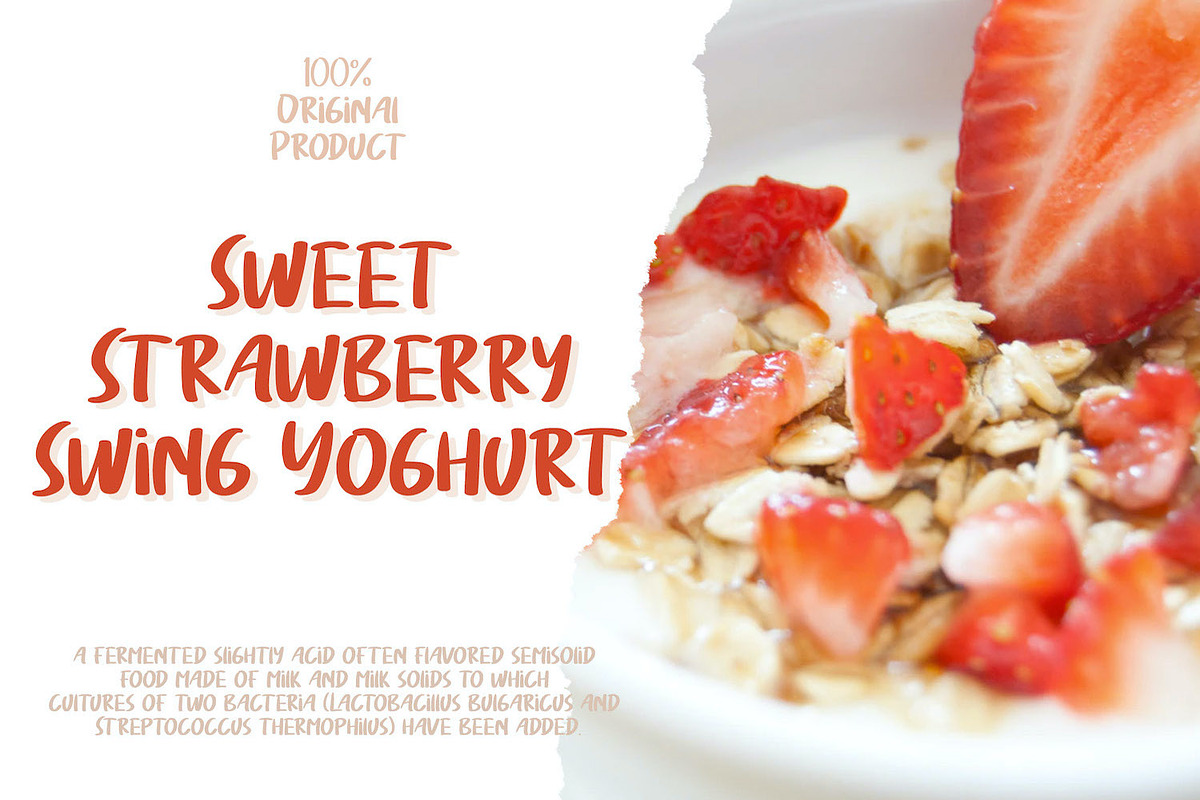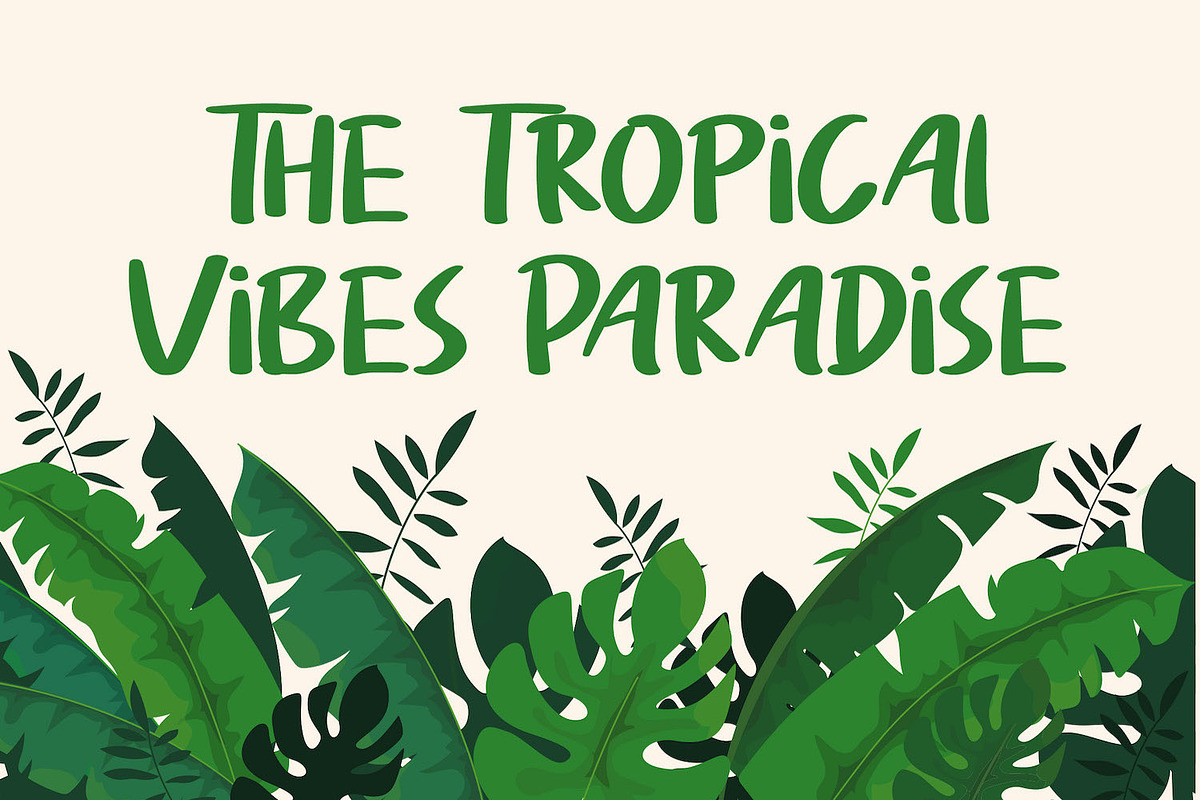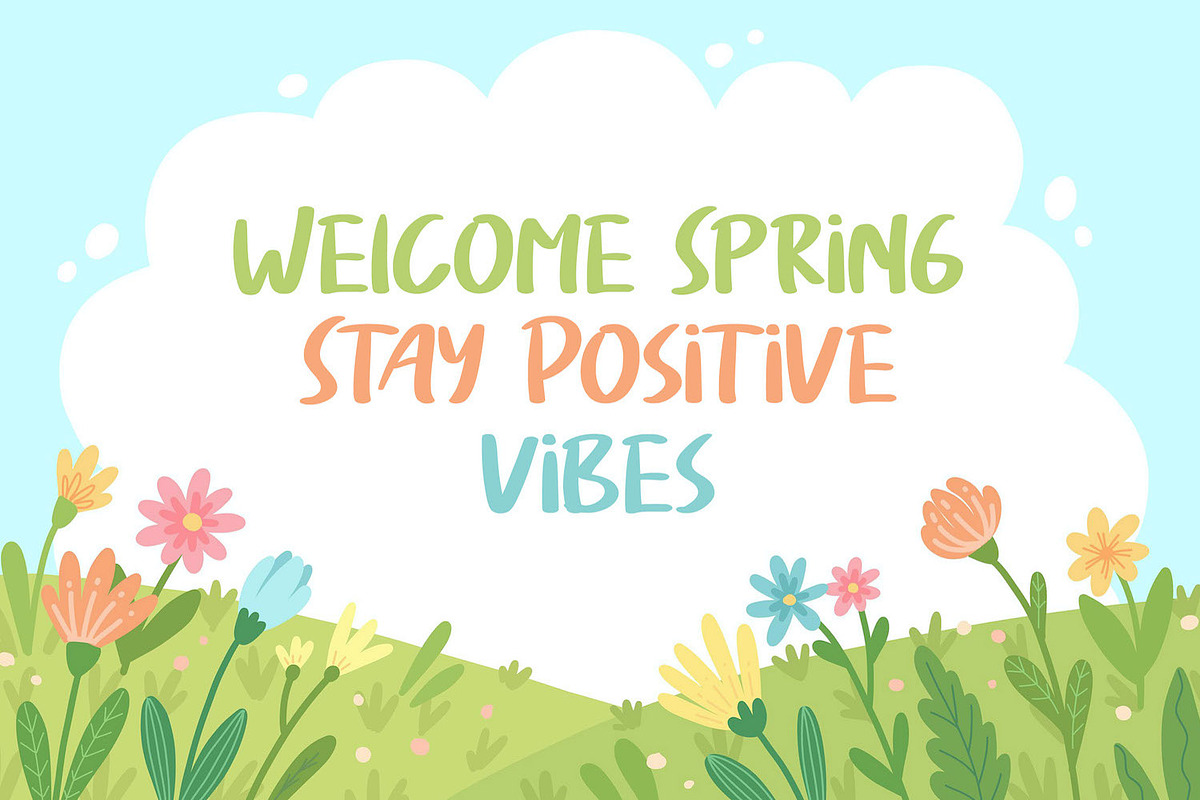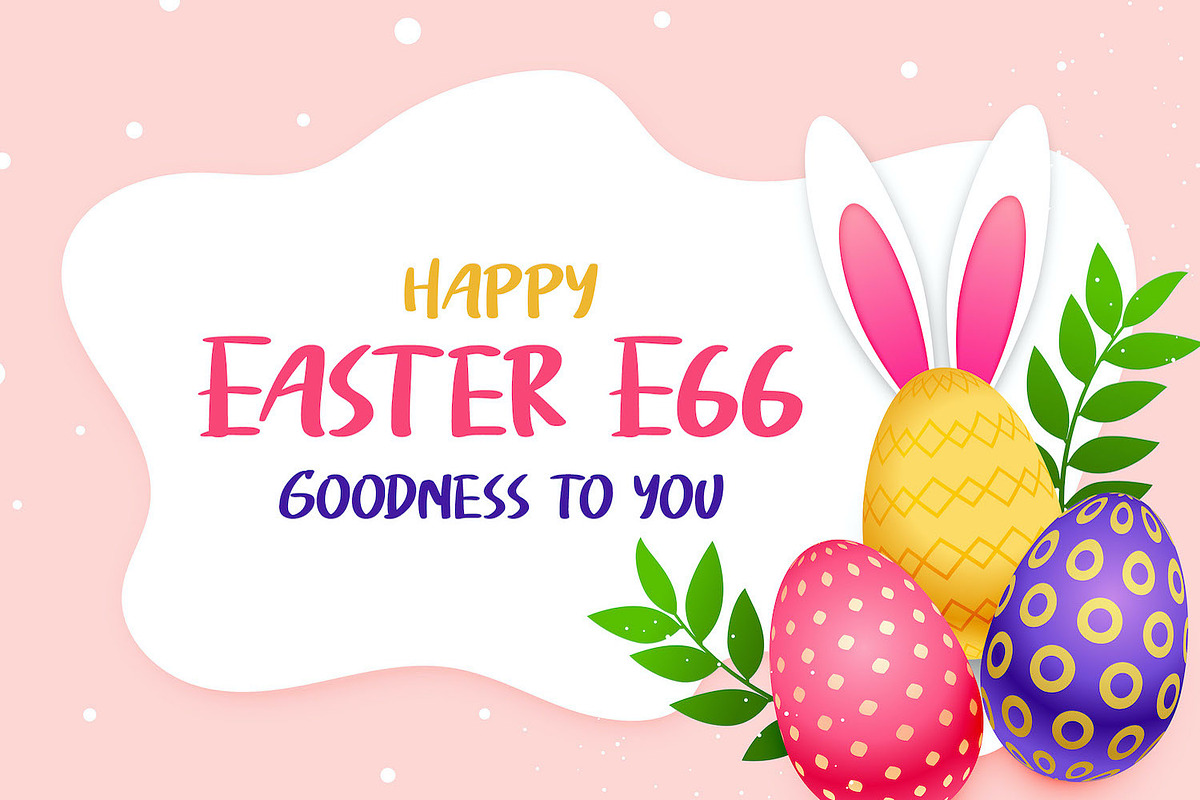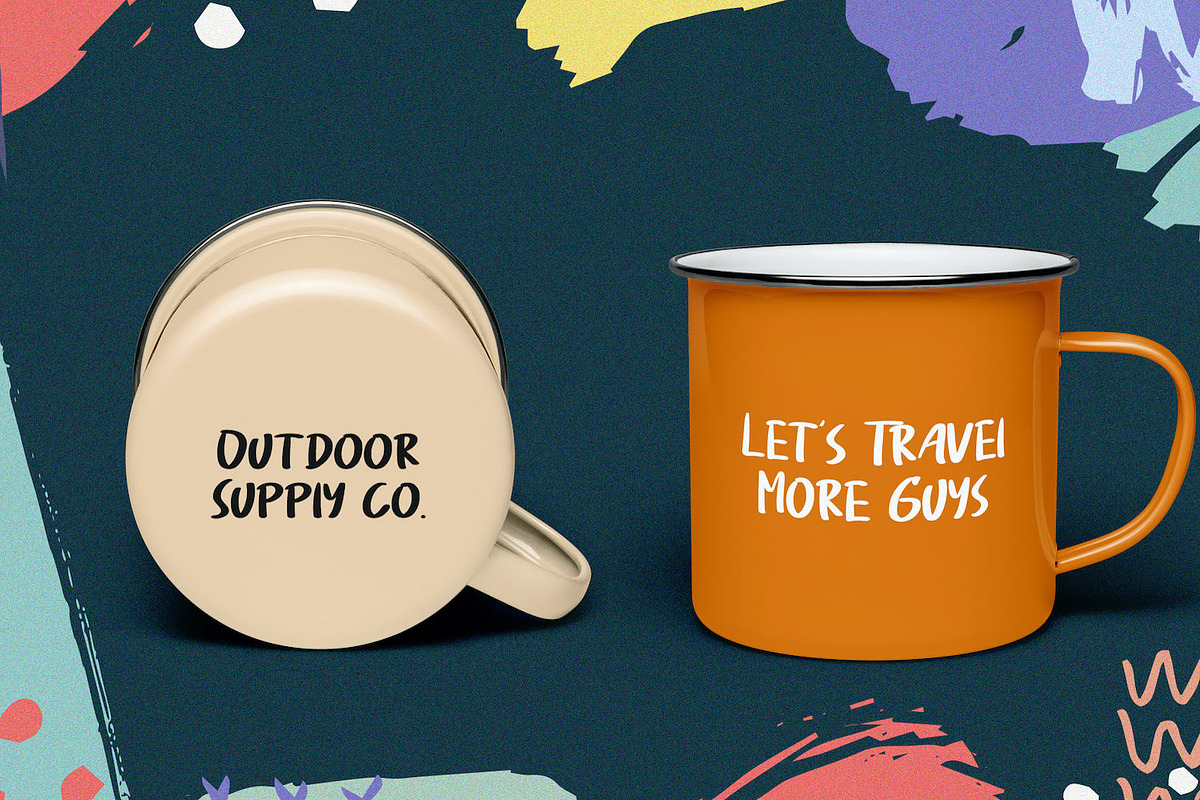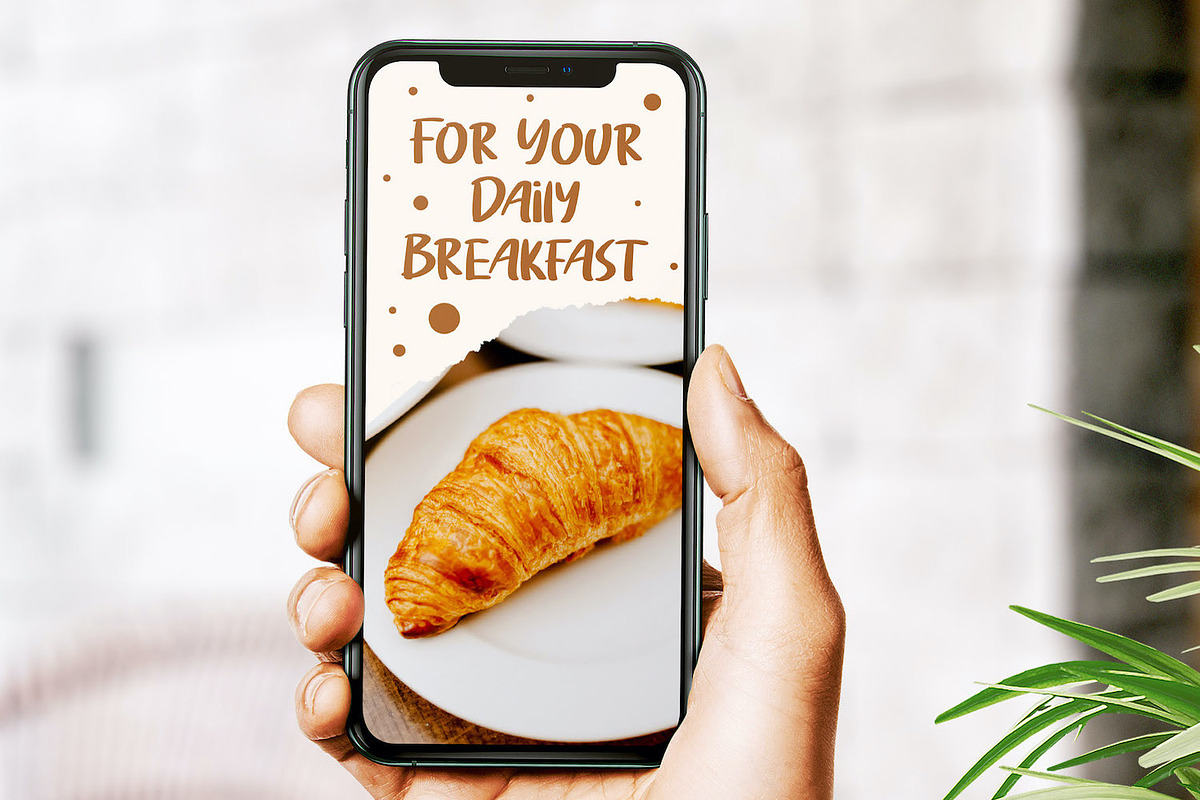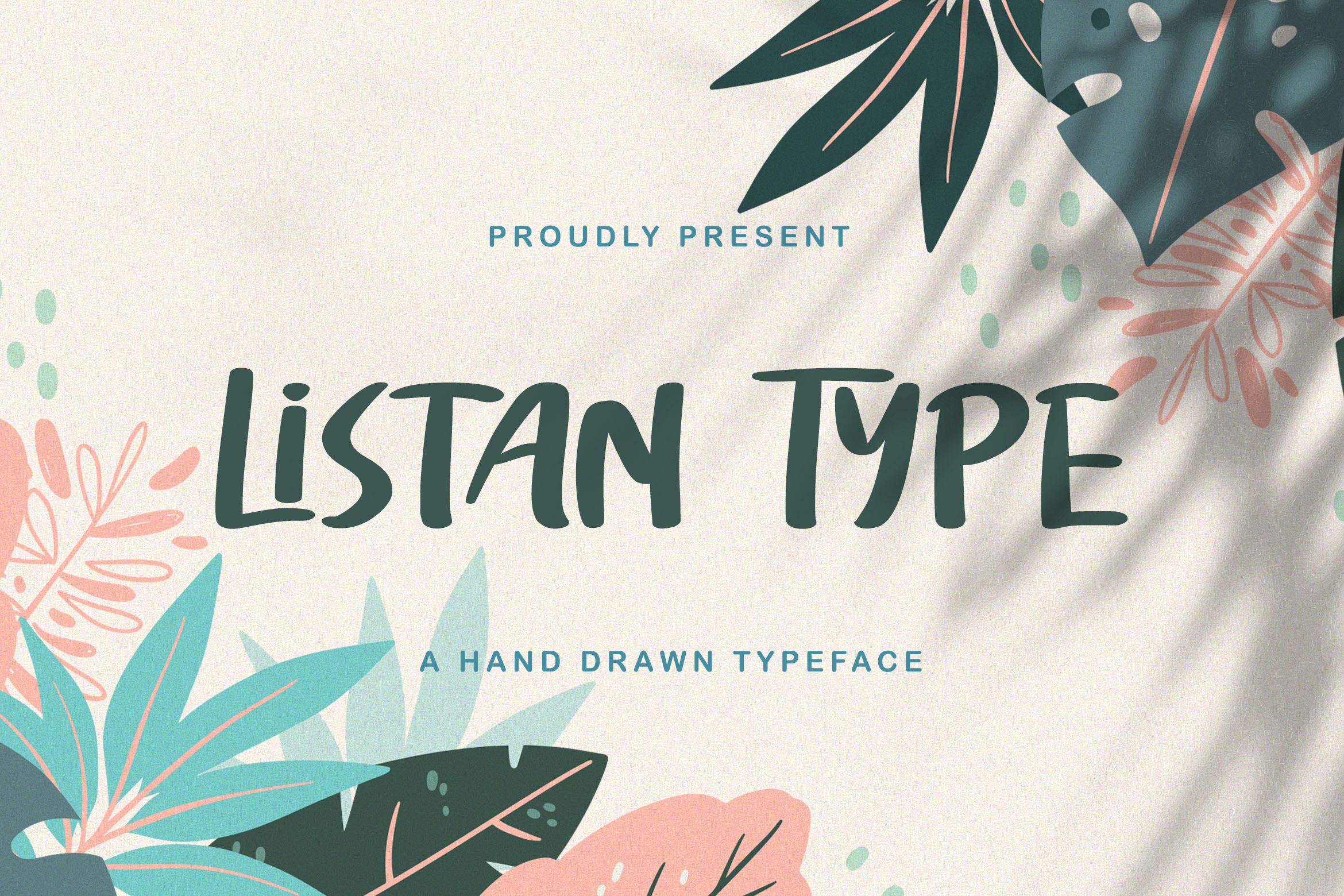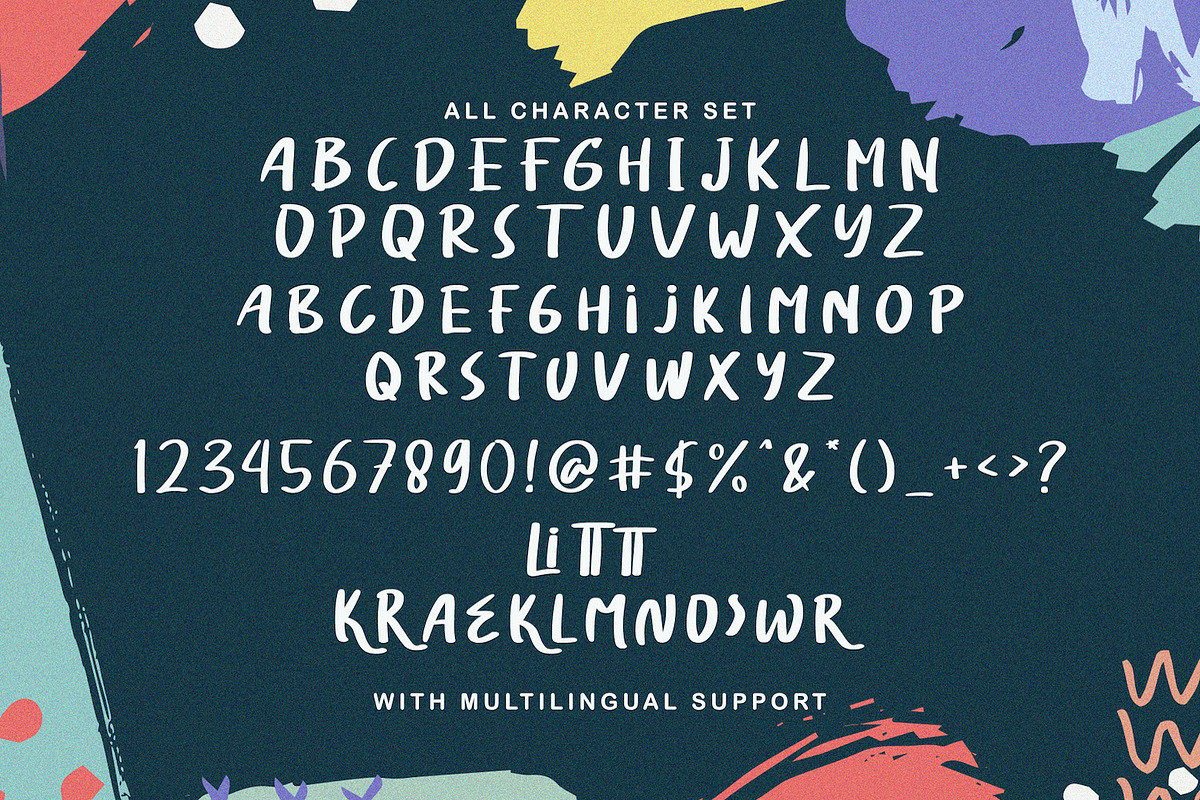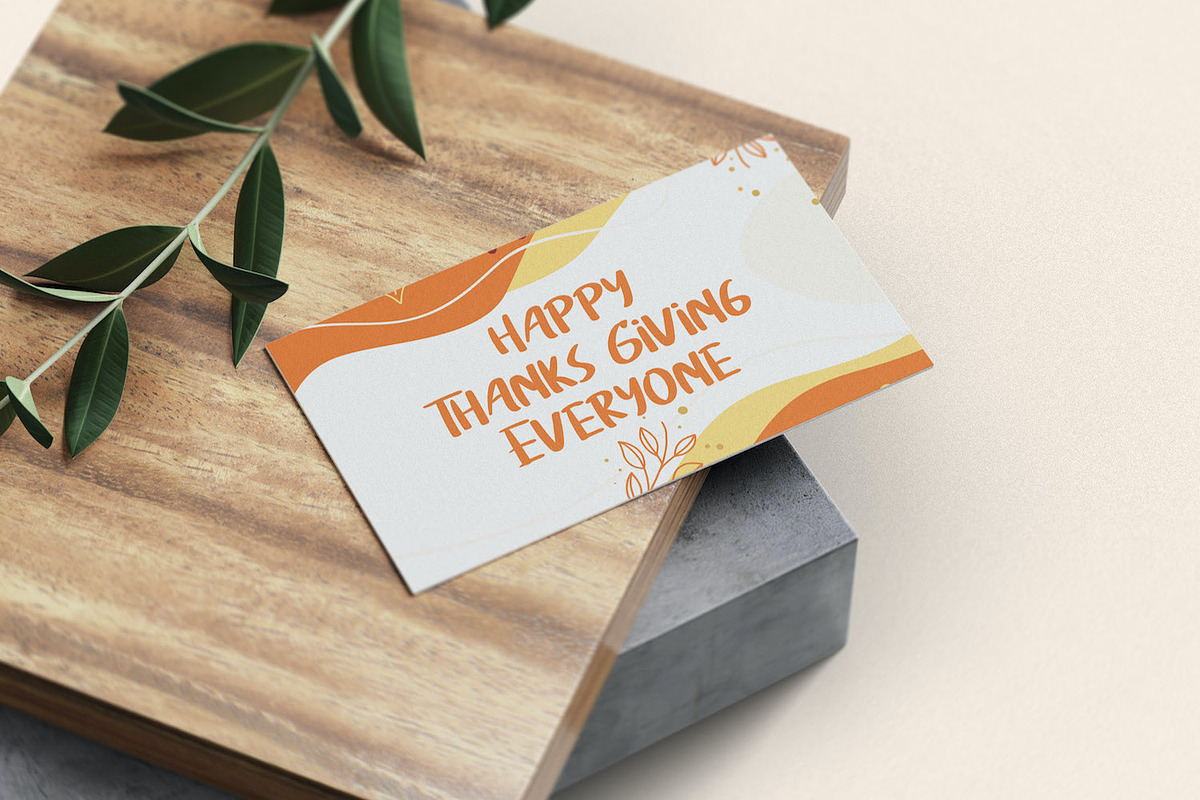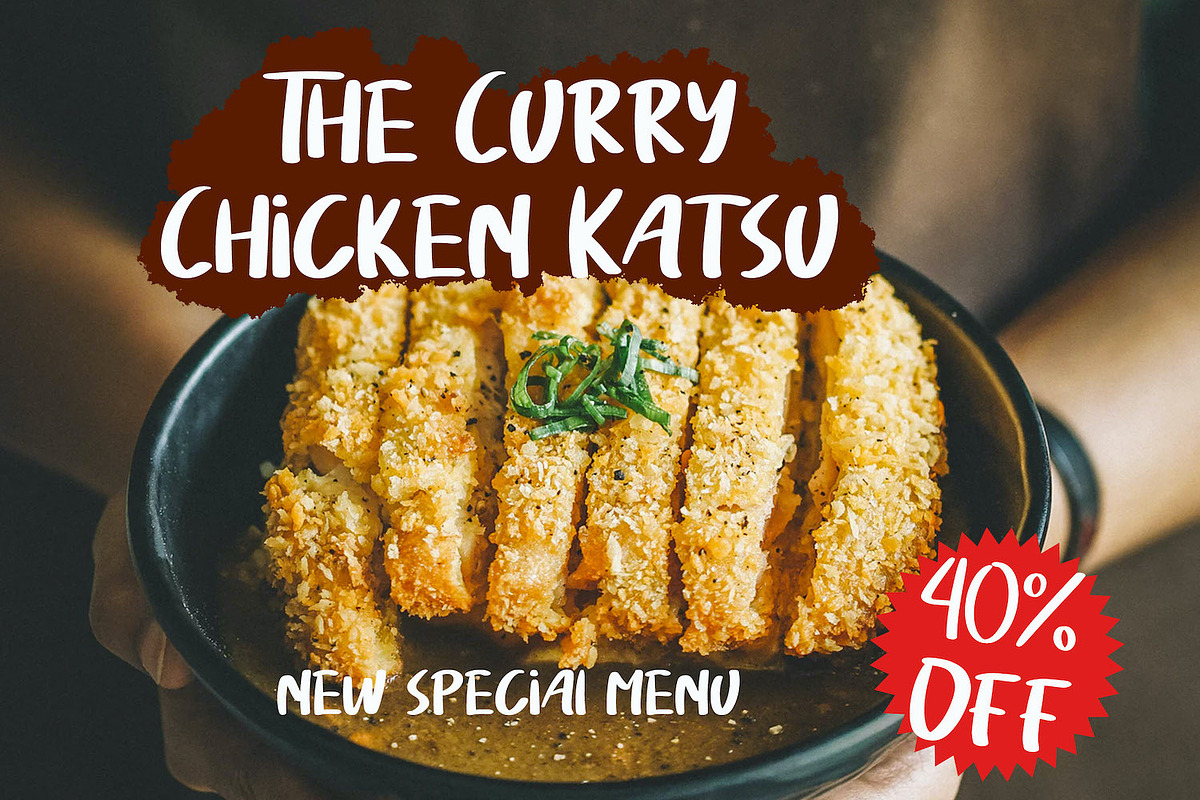
Listan Type - Playful Display Font
Introducing Listan Type - Playful Display Font
Listan Type is a fun display font. Playful and fresh, this font will be a hit for each of your children or school projects!